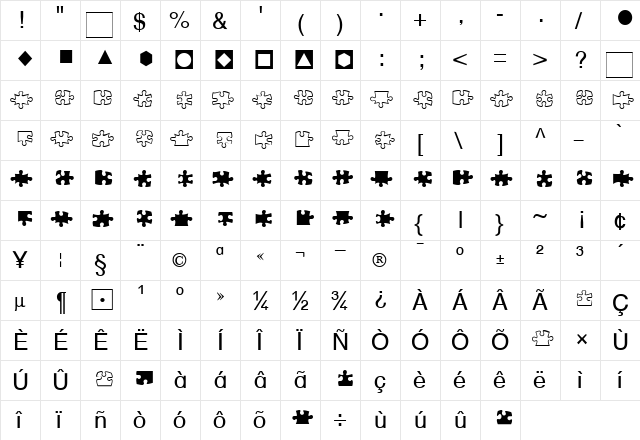
SR Puzzle Normal
Design Context for SR Puzzle Typeface
SR Puzzle is a composed and adaptable typeface that performs quietly and consistently across a wide range of design contexts.